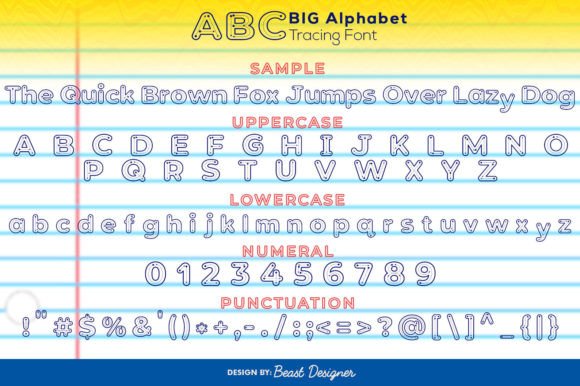
Learning the Alphabet Just Got a Whole Lot More Fun
Do you remember the excitement of learning to write the alphabet as a child? For many of us, the thrill of creating our first letters and words is a cherished memory that has stayed with us to this day. But what if we told you there’s a way to recapture that magic and make learning the alphabet an enjoyable experience for kids once again?
Enter the Big Alphabet Tracing Font – a playful and engaging font designed specifically to help kids learn the alphabet in a fun and interactive way. With its friendly and approachable design, this font is perfect for teachers, parents, and anyone who wants to bring learning to life. And for designers, the Big Alphabet Tracing Font offers a valuable resource for creating engaging educational materials that truly make a difference.
Big Alphabet Tracing Font Key Features
- Unique Large Alphabet Font: The Big Alphabet Tracing Font features oversized alphabet letters, making it ideal for tracing and writing practice for children.
- Size: The font is designed to be used at a minimum size of 48 points, allowing for clear visibility and easy tracing.
- Vector Graphics: The font is available in vector graphics format, making it scalable to any size without losing quality.
- Tracing Guidelines: Each letter includes tracing guidelines, helping children develop their handwriting skills and improve their letter recognition.
Big Alphabet Tracing Font Review
I recently had the chance to work with the Big Alphabet Tracing Font, and I must say it’s a unique and fun typeface. ✨ The font is designed specifically for tracing and writing, making it perfect for educational purposes or young children learning to write. The bold and colorful design is visually appealing and engaging.
The font includes a wide range of characters, from uppercase and lowercase letters to numbers and punctuation marks. ✨ It also comes with a few different styles, such as regular, bold, and italic, which can be useful for creating visually interesting compositions. The font is also fully editable, making it easy to customize as needed.
- ⚠️ The font may not be suitable for all design projects, as it’s quite playful and childlike. It may not be the best choice for corporate or professional designs.
- ⚠️ The font’s bold design can be overwhelming in large quantities, making it difficult to read in some cases.
Overall, I think the Big Alphabet Tracing Font is a great choice for educational or playful designs. While it may have some limitations, it’s a unique and engaging typeface that can add a lot of personality to a project. With some careful planning and use, I think this font can be a great addition to any designer’s toolkit.
The Big Alphabet Tracing Font is commonly used in educational settings to help children learn the alphabet and improve their handwriting skills.
It can also be used in marketing materials, such as flyers and posters, to create eye-catching and engaging designs.
Additionally, it can be used in crafting and DIY projects, such as making personalized cards and gift tags.